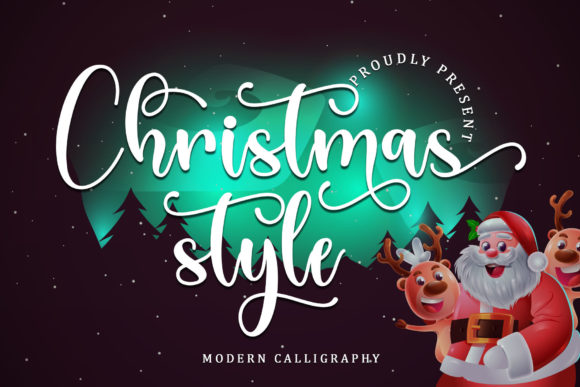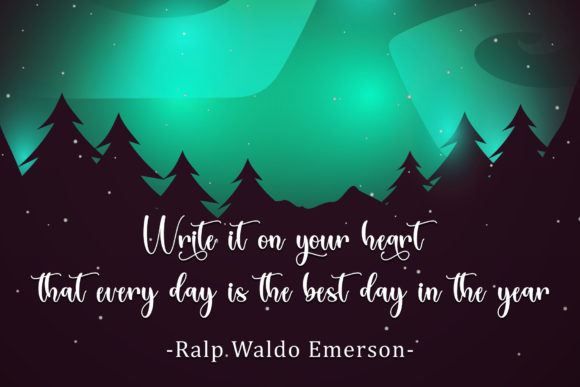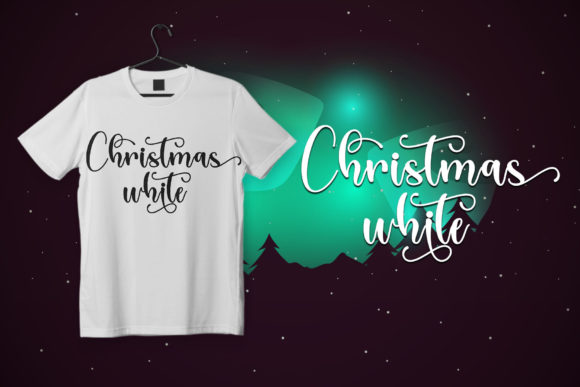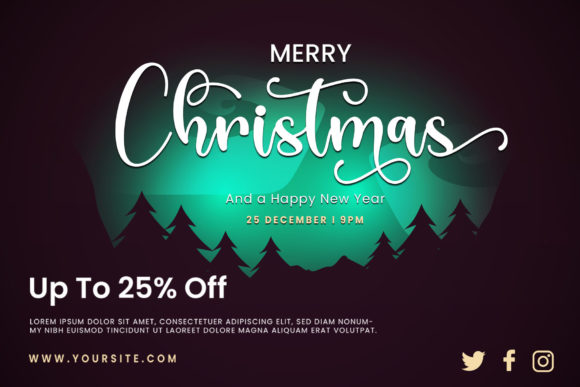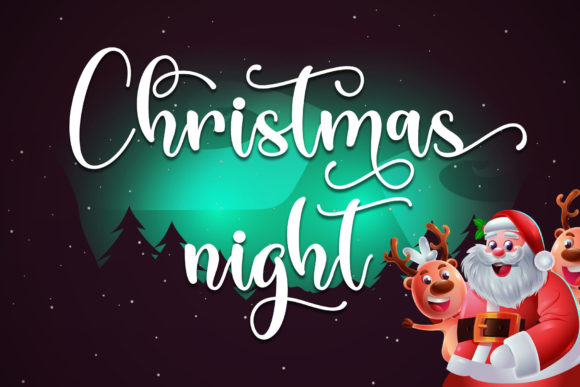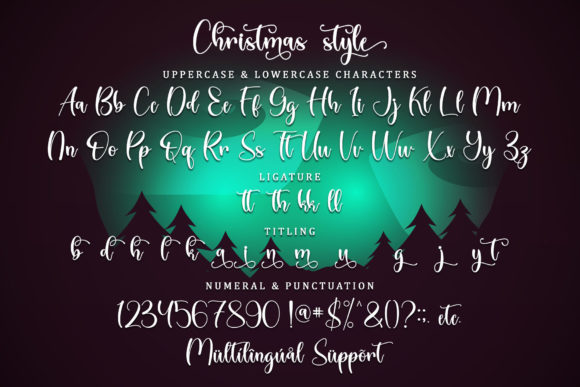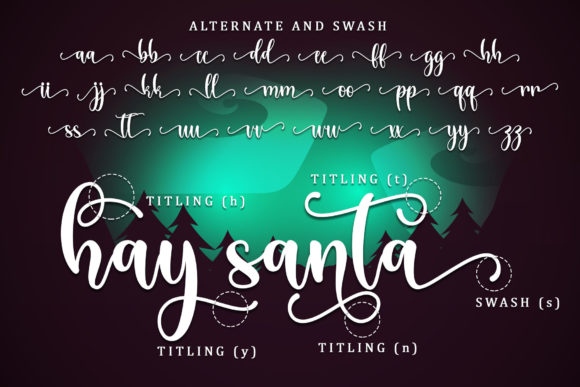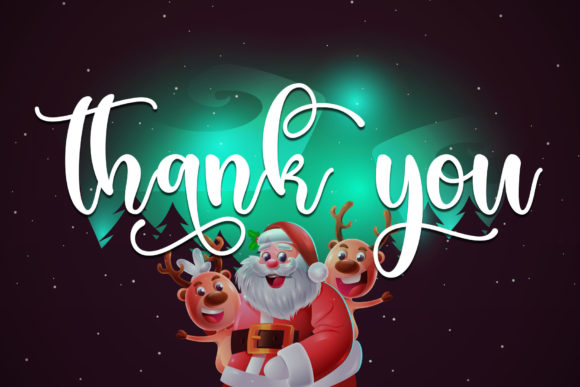
Christmas Style Font
About Christmas Style Font
Christmas Style is modern calligraphy that looks beautiful on Christmas cards, invitations, t-shirt designs, labels, logos, magazines, children’s books, blog graphics, and more.